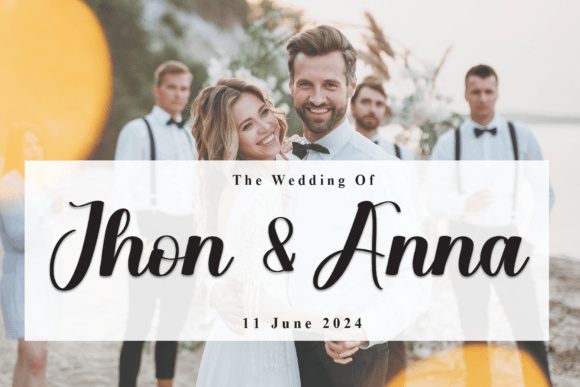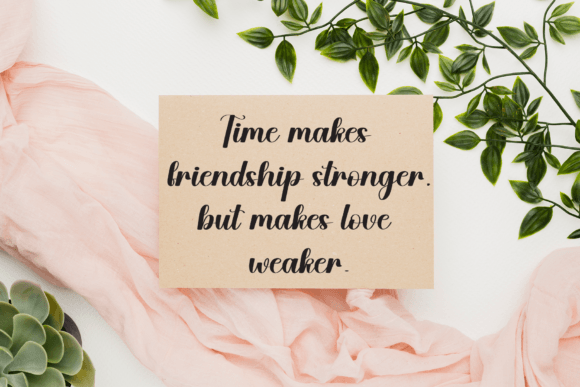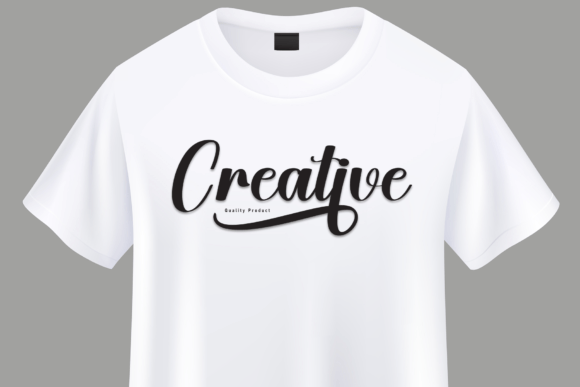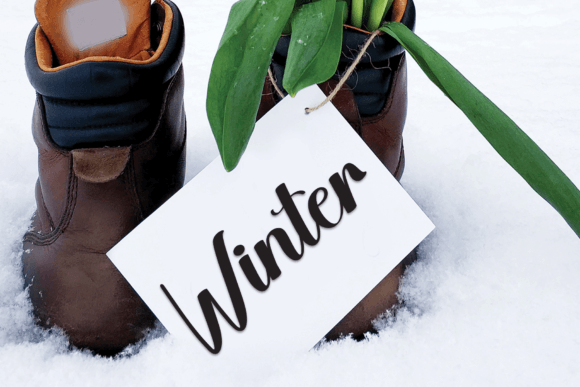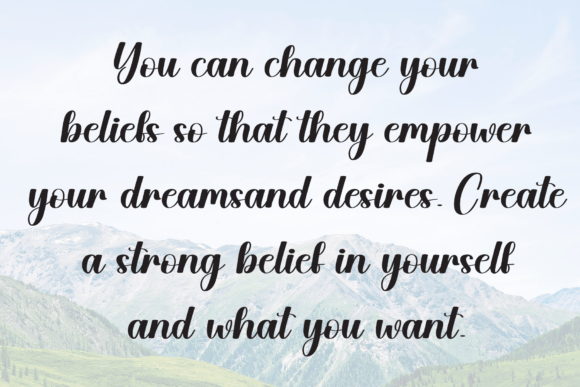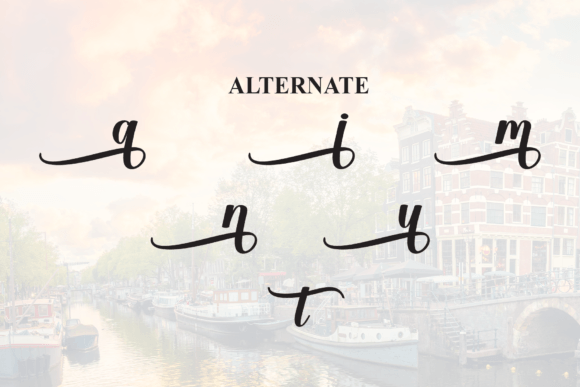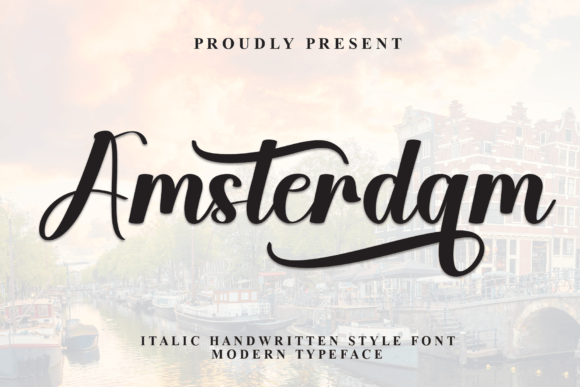
Discover the Charm of Amsterdam Font: A Sweet and Friendly Handwritten Delight
Are you on the hunt for a font that can add a touch of warmth and personality to your designs? Look no further than the Amsterdam Font, a sweet and friendly handwritten font that’s sure to capture your heart. With its natural and unique style, Amsterdam Font is incredibly versatile and can be used in a wide range of design projects. Whether you’re a designer, crafter, or DIY enthusiast, this delightful font is sure to become a favorite in your collection.
The Characteristics of Amsterdam Font
So, what makes Amsterdam Font so special? For starters, its handwritten style gives it a personal and approachable feel that’s perfect for designs that need a human touch. The font’s natural and unique style also makes it stand out from more traditional fonts, adding a touch of whimsy and charm to any project. Plus, with its clean and legible lines, Amsterdam Font is easy to read and understand, making it perfect for use in a variety of design applications.
What Makes Amsterdam Font So Versatile?
One of the best things about Amsterdam Font is its incredible versatility. Because of its unique style, it can be used in a wide range of design projects, from:
- Branding and packaging: Add a touch of personality to your brand with Amsterdam Font, perfect for use on packaging, labels, and business cards.
- Invitations and stationery: Create beautiful and unique invitations, greeting cards, and stationery with Amsterdam Font.
- Signs and posters: Use Amsterdam Font to create eye-catching signs and posters that are sure to grab attention.
- Digital designs: Amsterdam Font is perfect for use in digital designs, such as social media graphics, blog posts, and website headers.
- Crafting and DIY projects: Add a personal touch to your crafting and DIY projects, such as scrapbooking, journaling, and handmade cards.
Why Designers and Crafters Love Amsterdam Font
So, why do designers and crafters love Amsterdam Font? For one, its unique style makes it a great way to add personality and interest to designs. Additionally, the font’s versatility means it can be used in a wide range of projects, making it a great addition to any design collection. Plus, with its clean and legible lines, Amsterdam Font is easy to work with and can be used in a variety of design applications.
Tips for Using Amsterdam Font in Your Designs
Ready to start using Amsterdam Font in your designs? Here are a few tips to get you started:
- Experiment with different colors: Amsterdam Font looks great in a variety of colors, so don’t be afraid to experiment and find the perfect hue for your design.
- Mix and match with other fonts: Amsterdam Font pairs well with a variety of other fonts, so try mixing and matching it with other fonts to create a unique look.
- Use it for headings and titles: Amsterdam Font is perfect for use in headings and titles, where its unique style can really shine.
- Add some texture: Consider adding some texture to your design, such as a subtle background or texture overlay, to give it an extra boost of interest.
In conclusion, Amsterdam Font is a sweet and friendly handwritten font that’s perfect for designers and crafters looking to add a touch of personality and whimsy to their designs. With its natural and unique style, Amsterdam Font is incredibly versatile and can be used in a wide range of design projects. Whether you’re looking to create beautiful branding and packaging, unique invitations and stationery, or eye-catching signs and posters, Amsterdam Font is the perfect choice. So why wait? Download Amsterdam Font today and start adding a touch of charm to your designs!